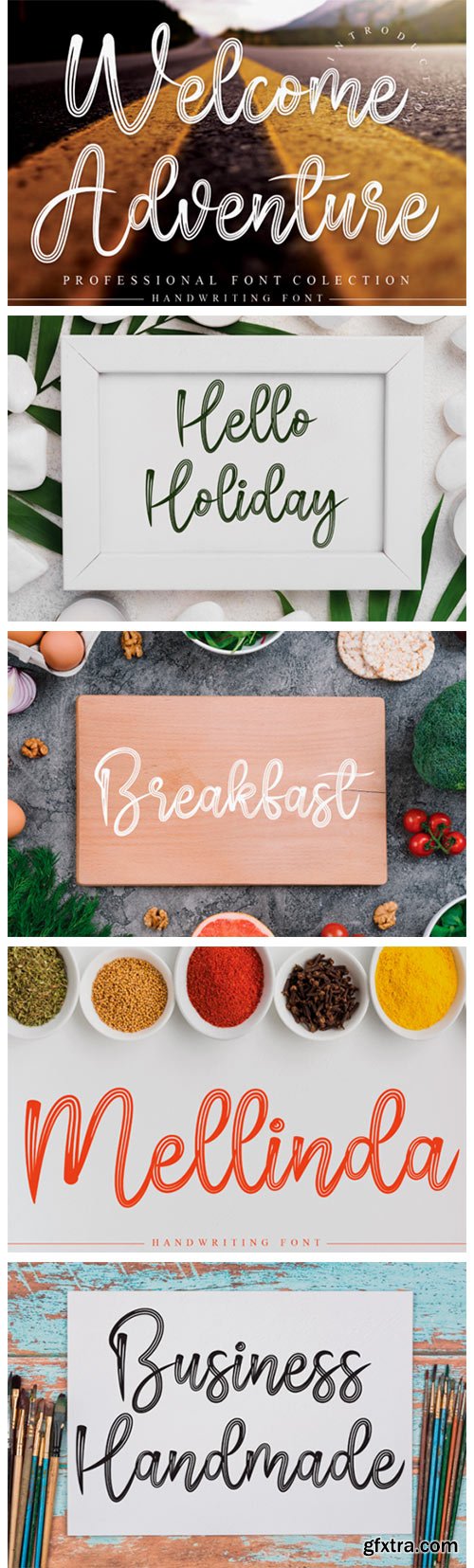
Welcome Adventure Font
Welcome Adventure is a beautiful joyful and sweet handwritten font. Delicate and natural, this font will be ideal for writing wedding invitations, cards or any other design that may need a personalized touch!